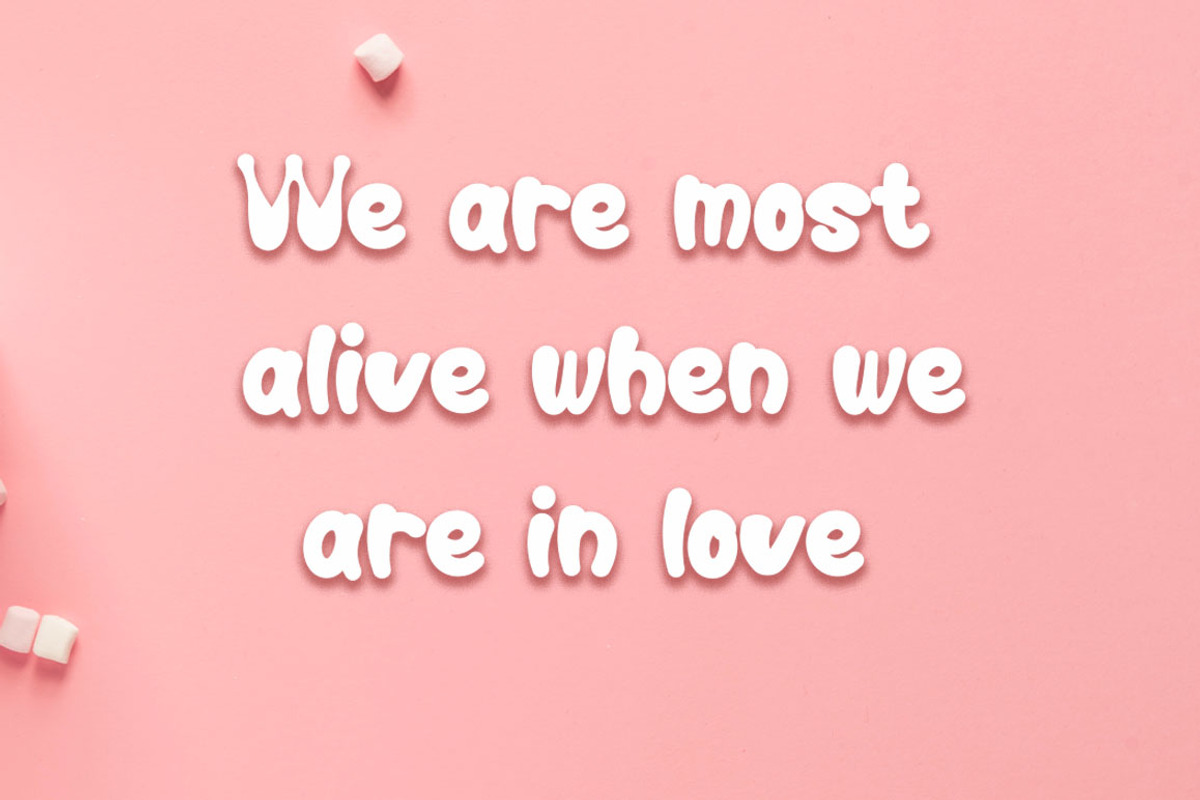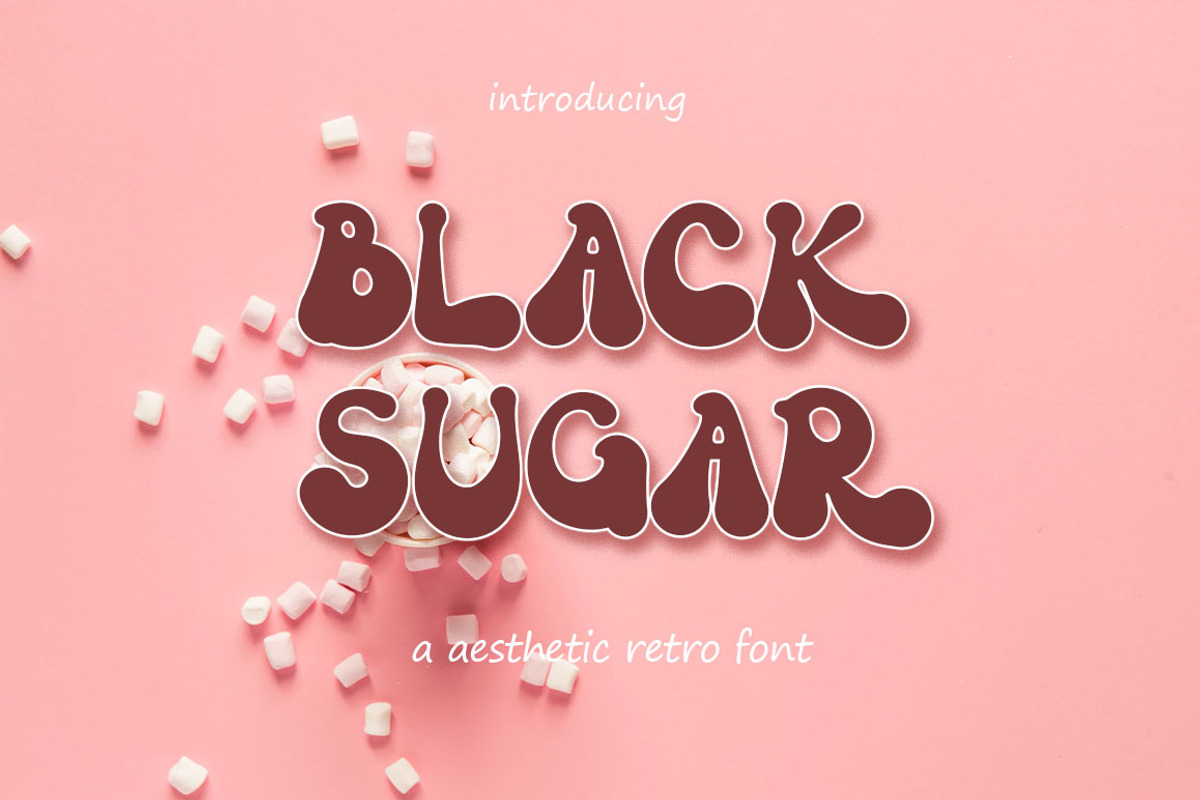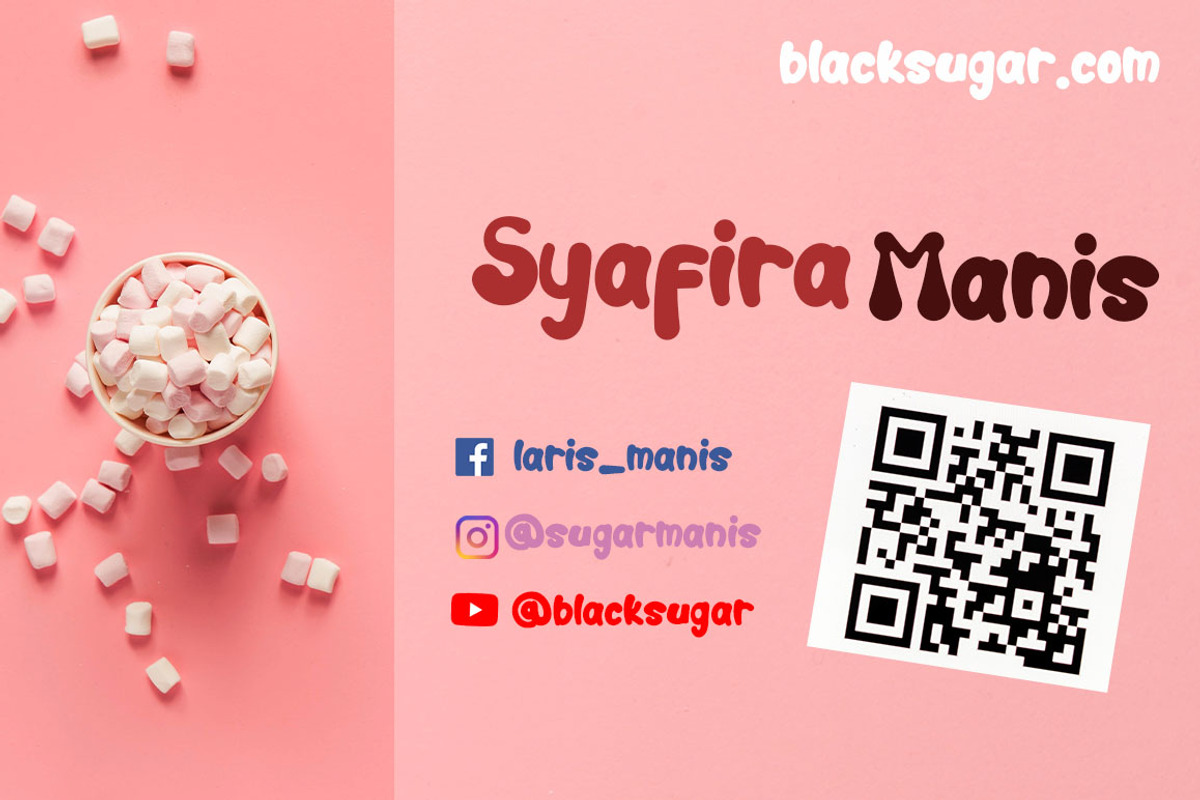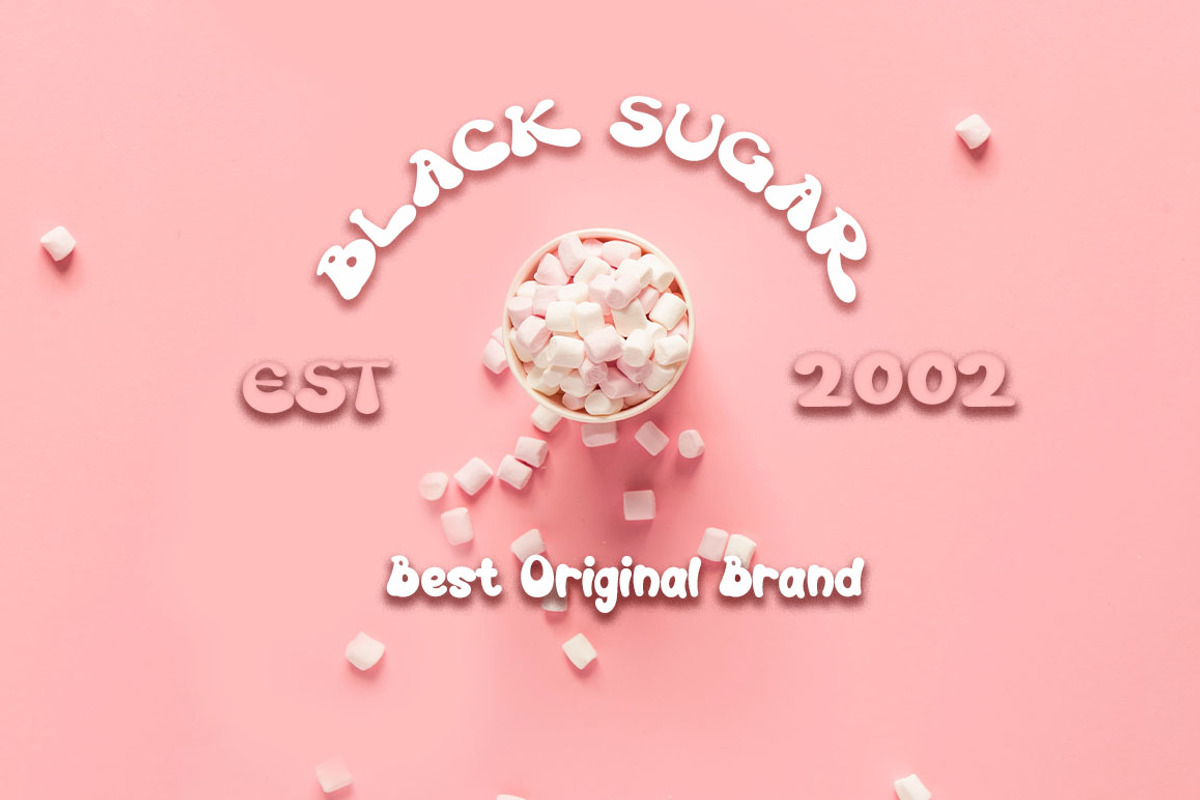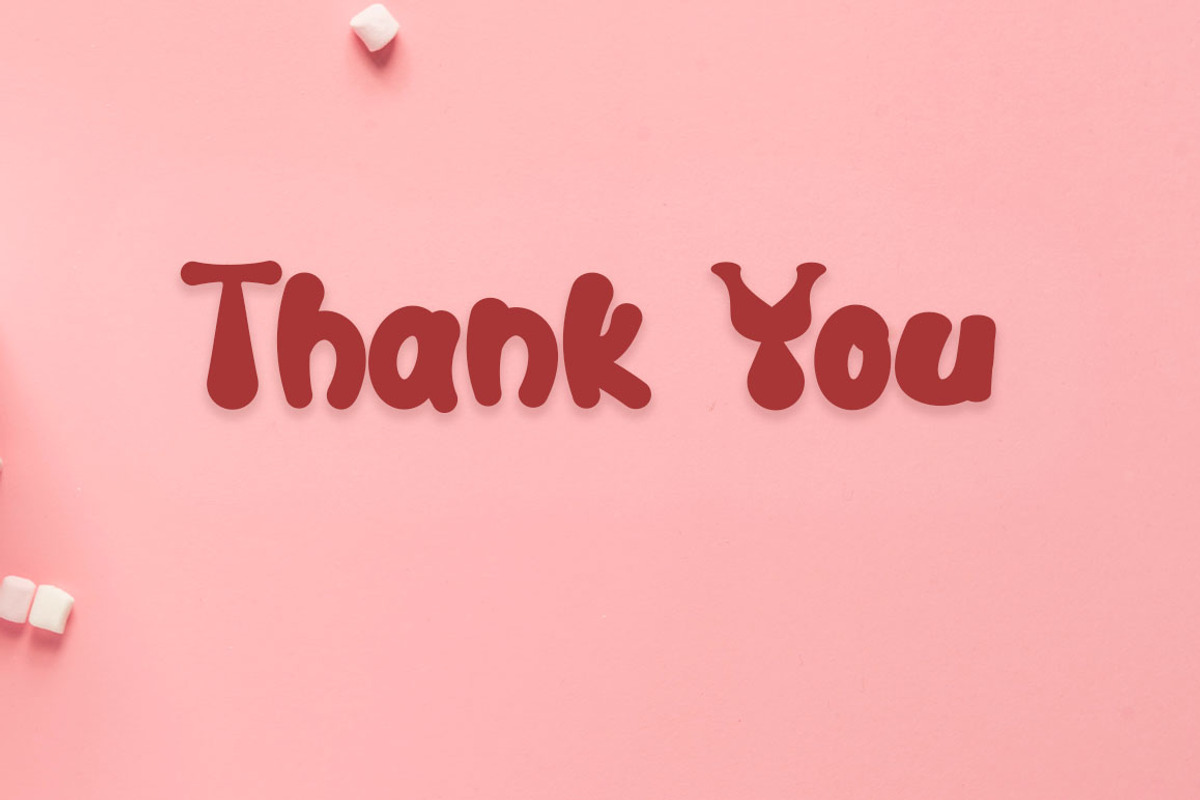
Black Sugar | Retro Font
Black sugar font with bold and curved characters that make it cute and modern in style can be used for t-shirts, book covers and animated cartoon titles, very suitable for those of you who have these businesses, including retro fonts and displays as examples of black sugar writing and business cards. This font is PUA encoded which means you can access all of the amazing glyphs and ligatures with ease!